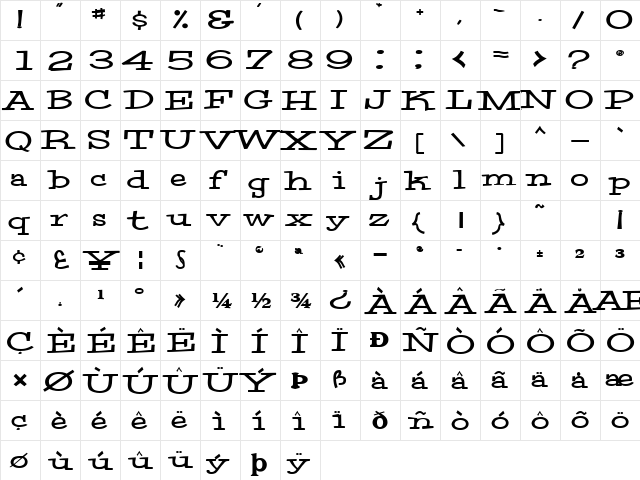
SchoolBoyOld80 Bold
Design Context for SchoolBoyOld80 Typeface
SchoolBoyOld80 is a composed and adaptable typeface that performs quietly and consistently across a wide range of design contexts. The heavy weight commands attention and anchors typographic hierarchies.